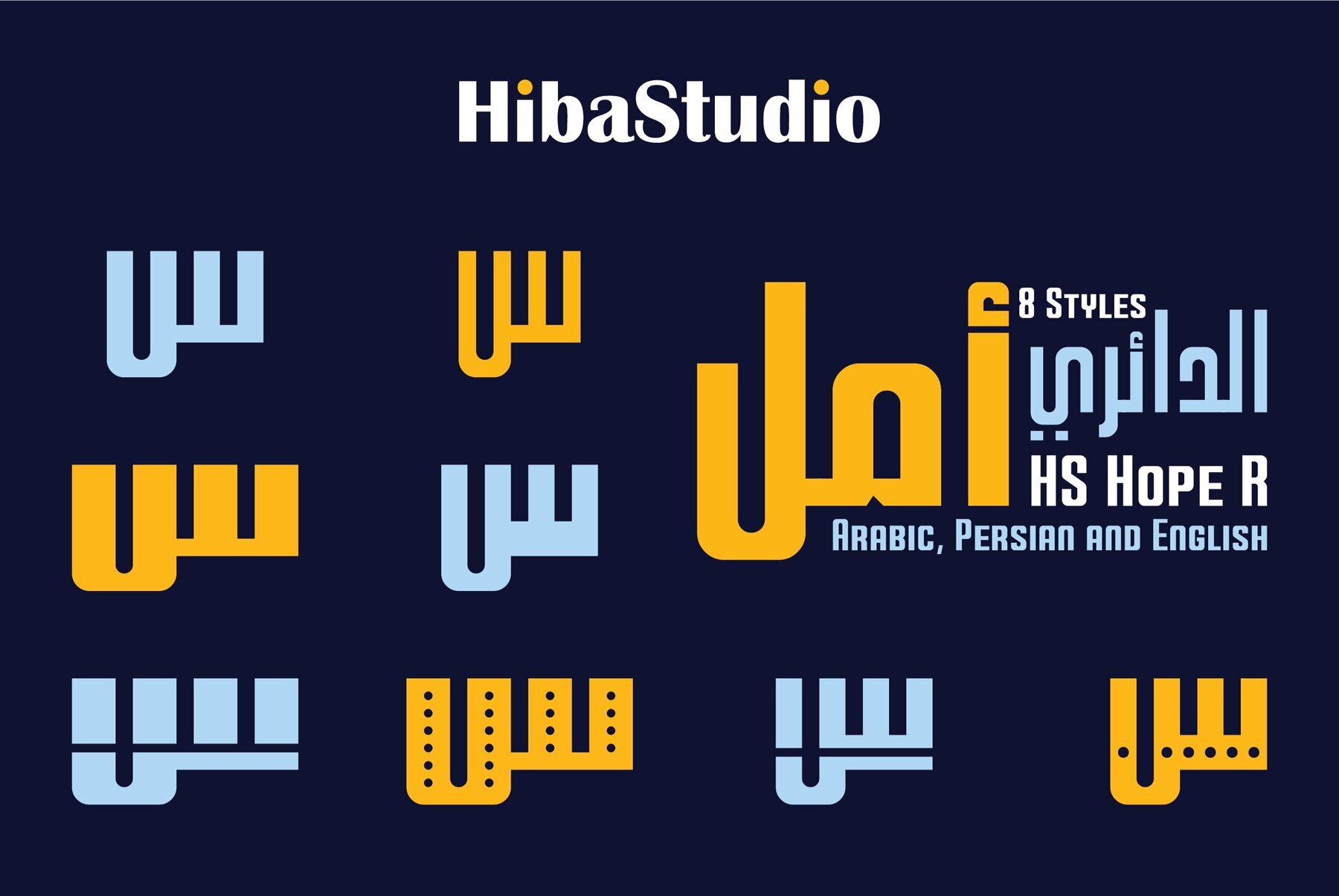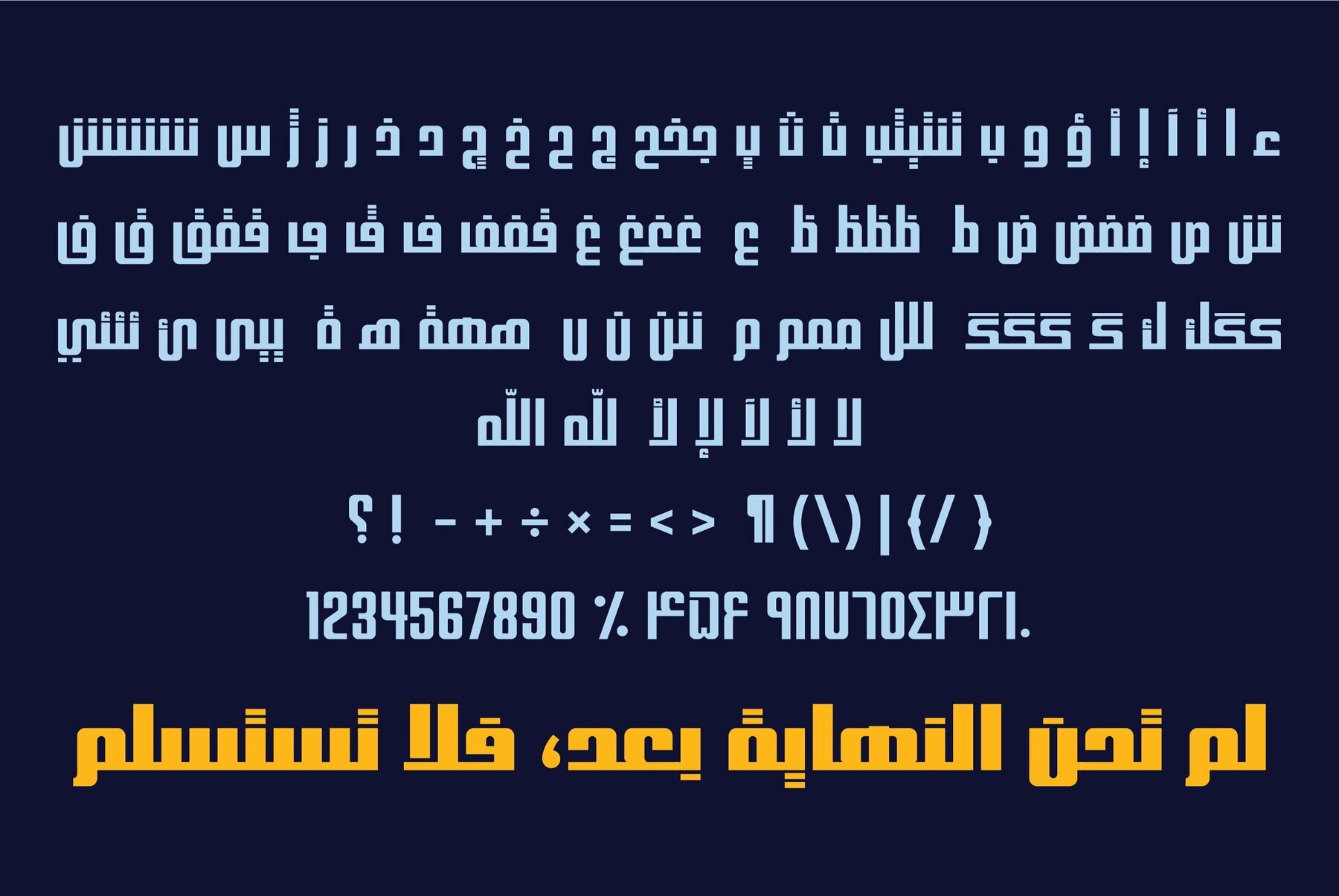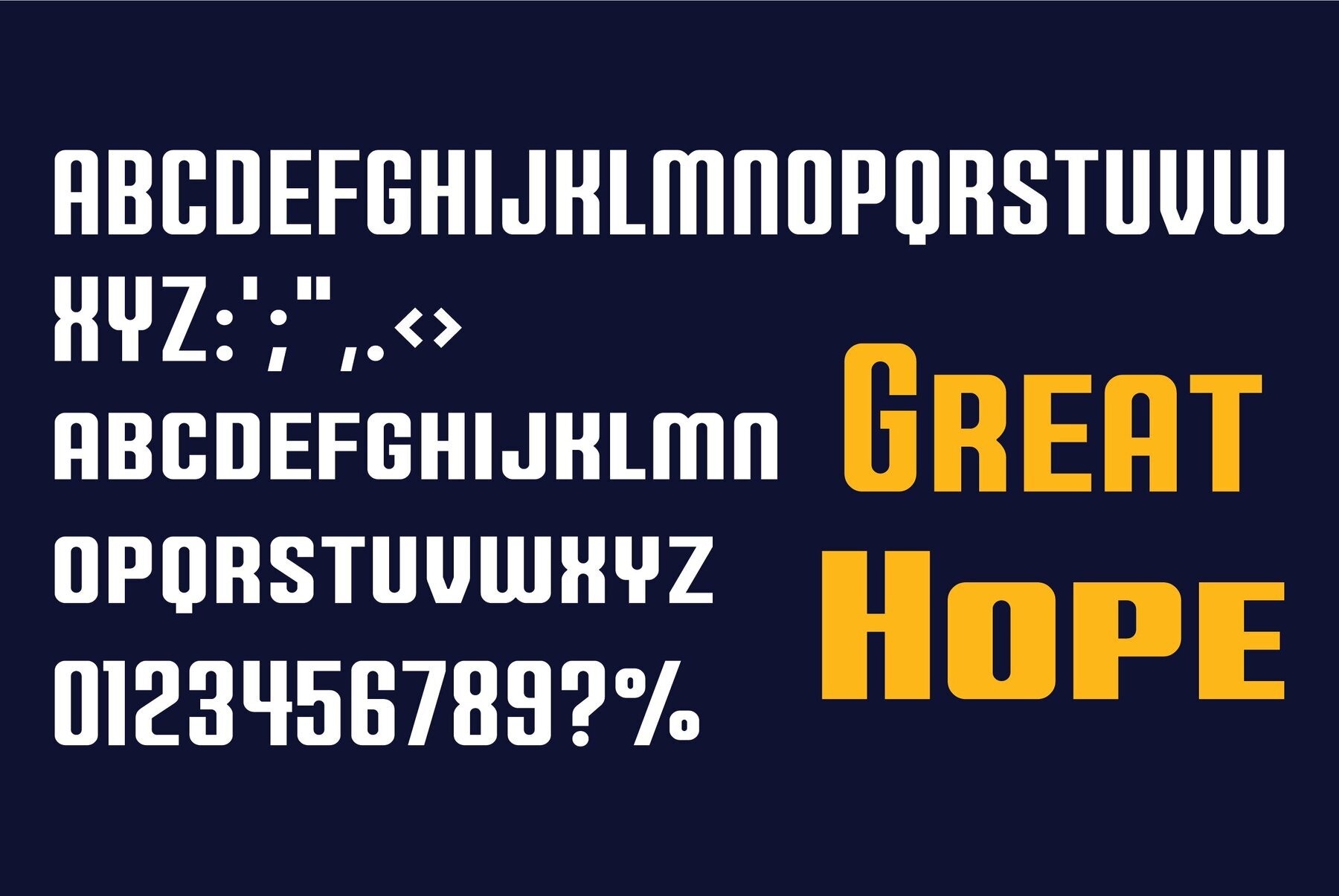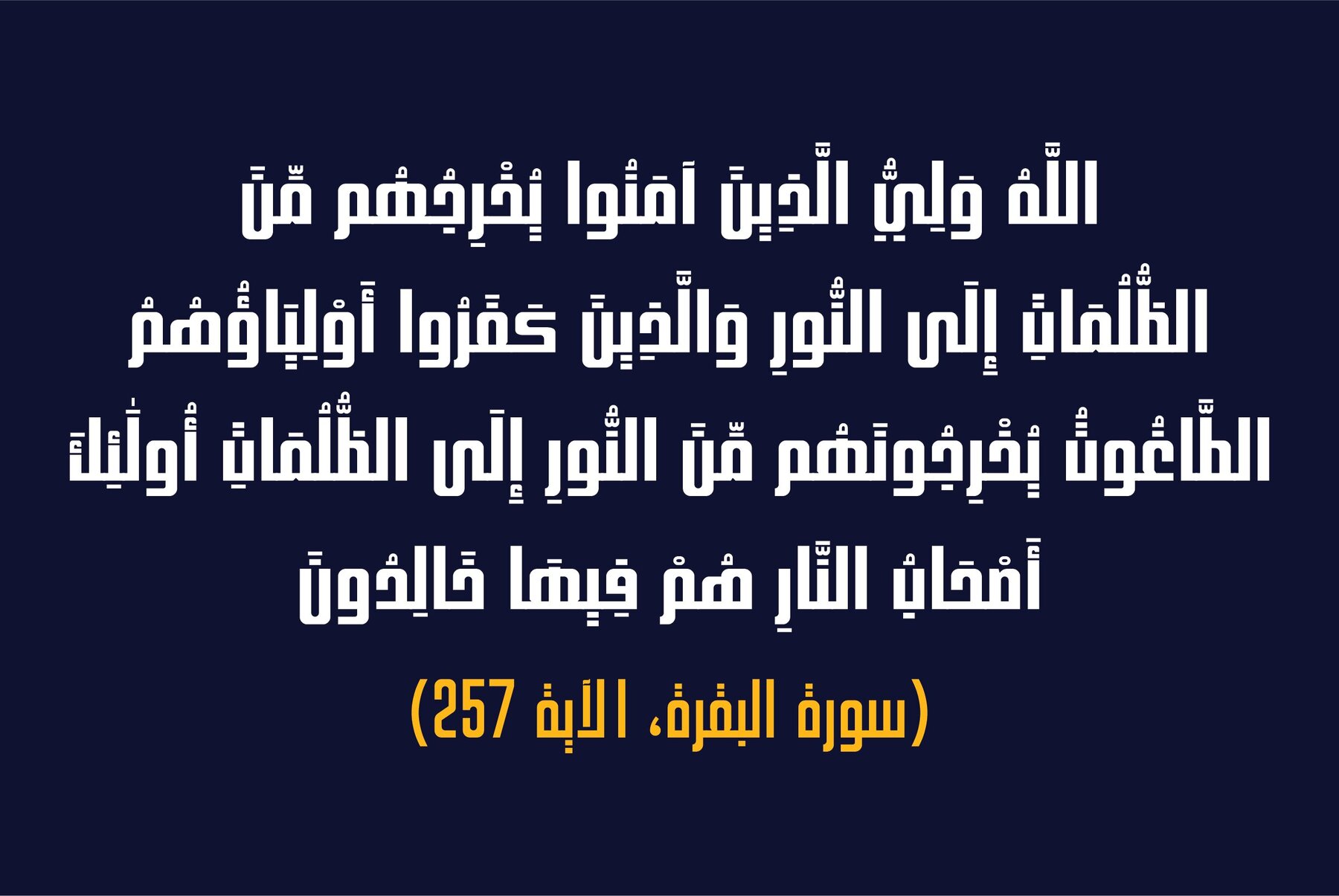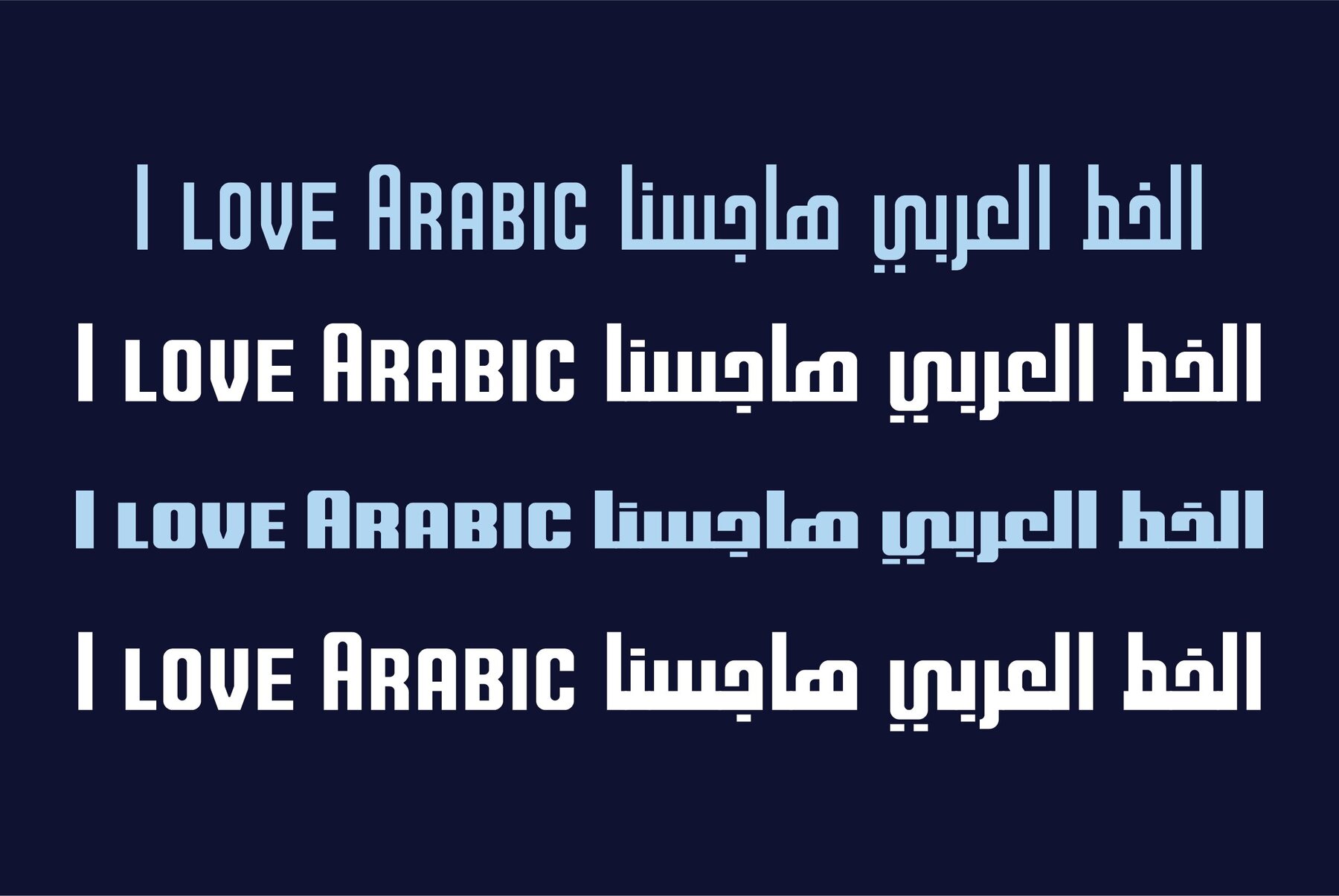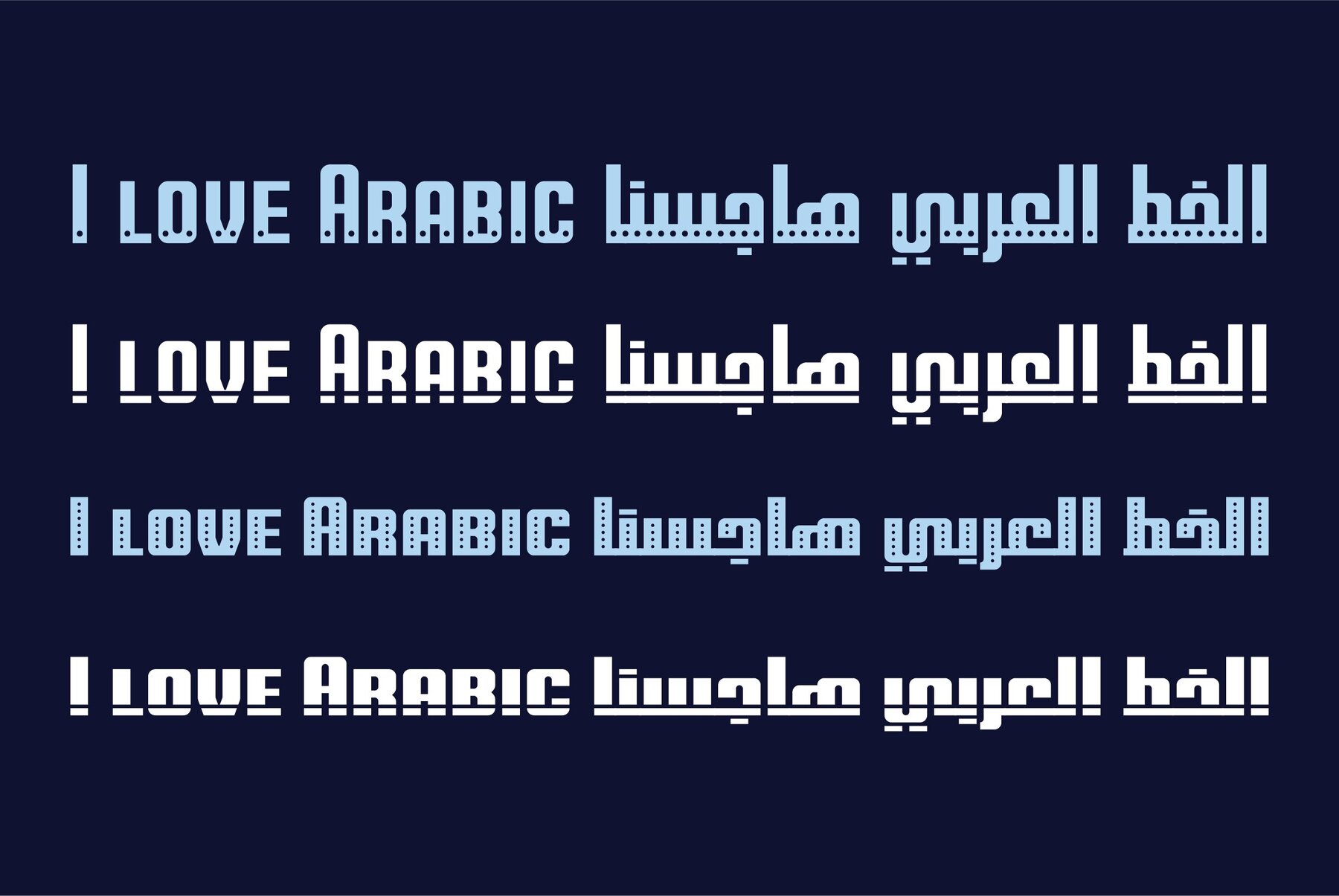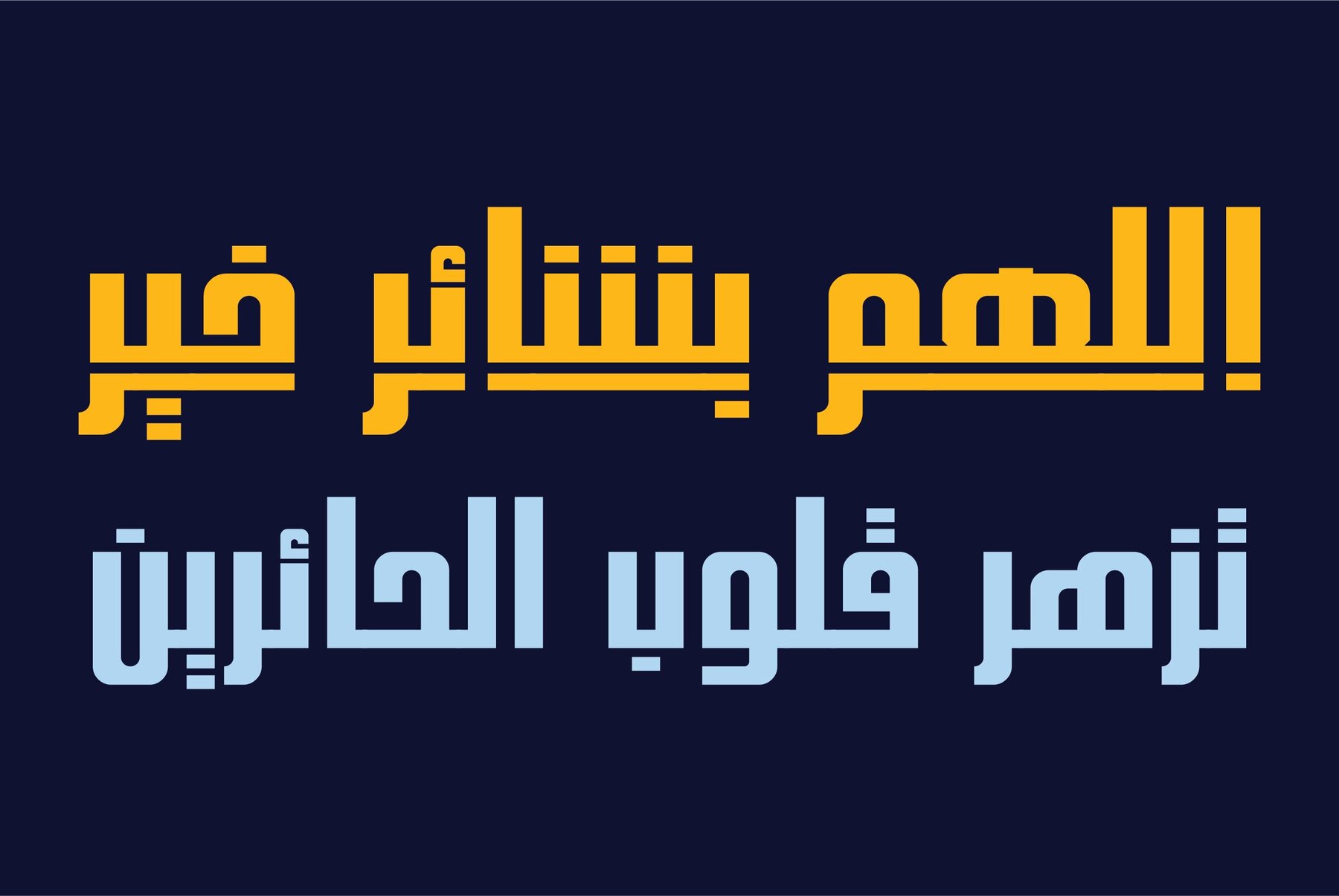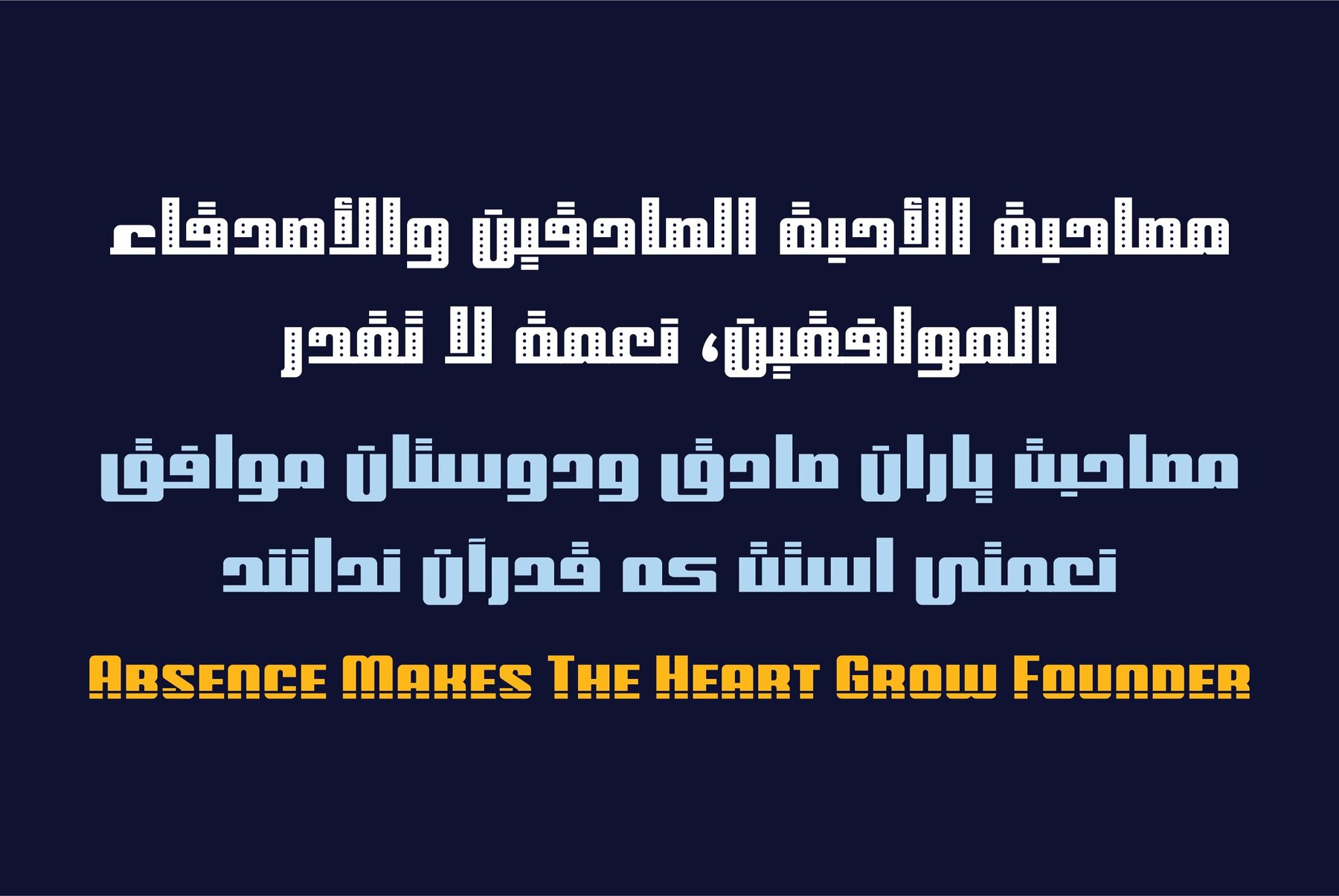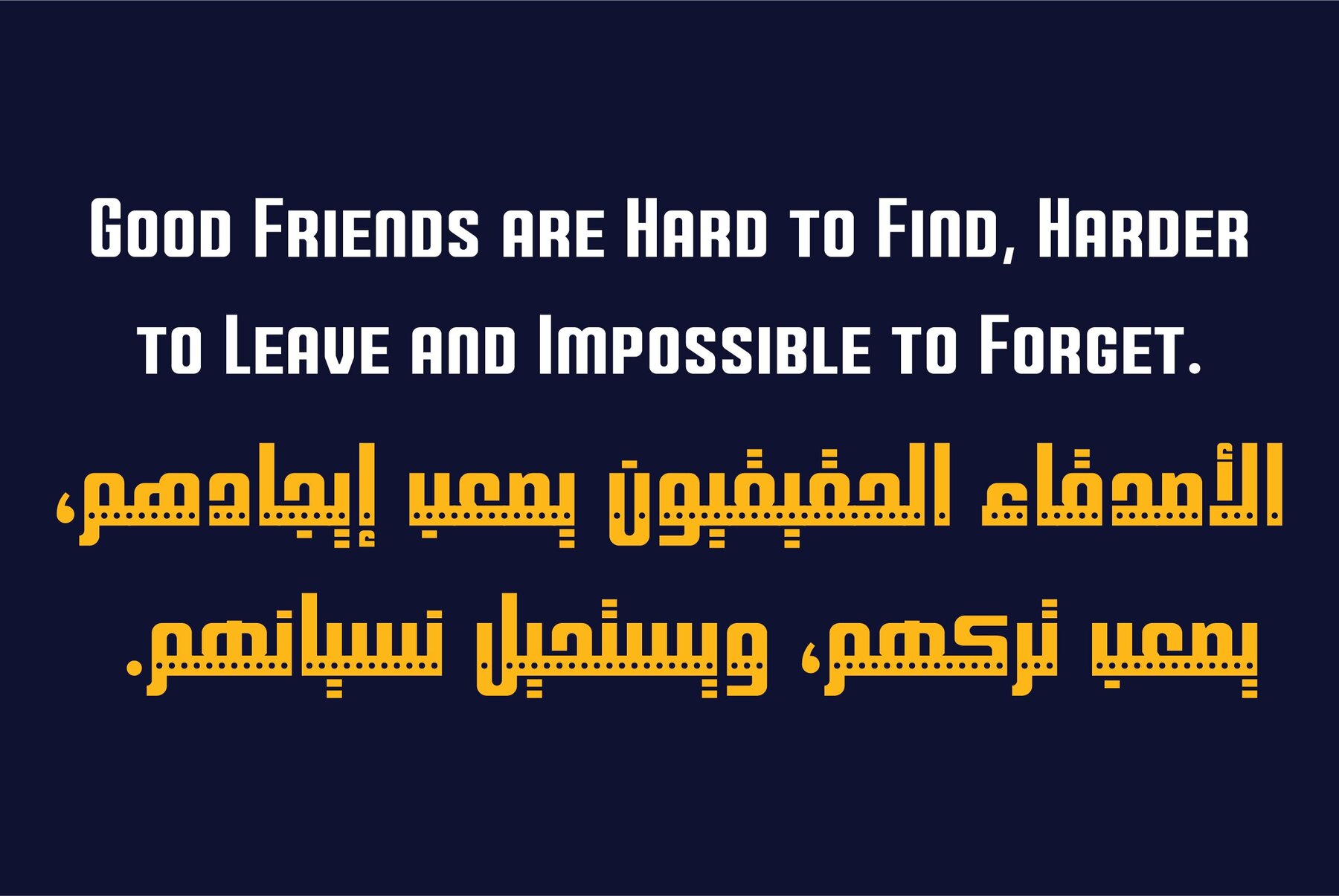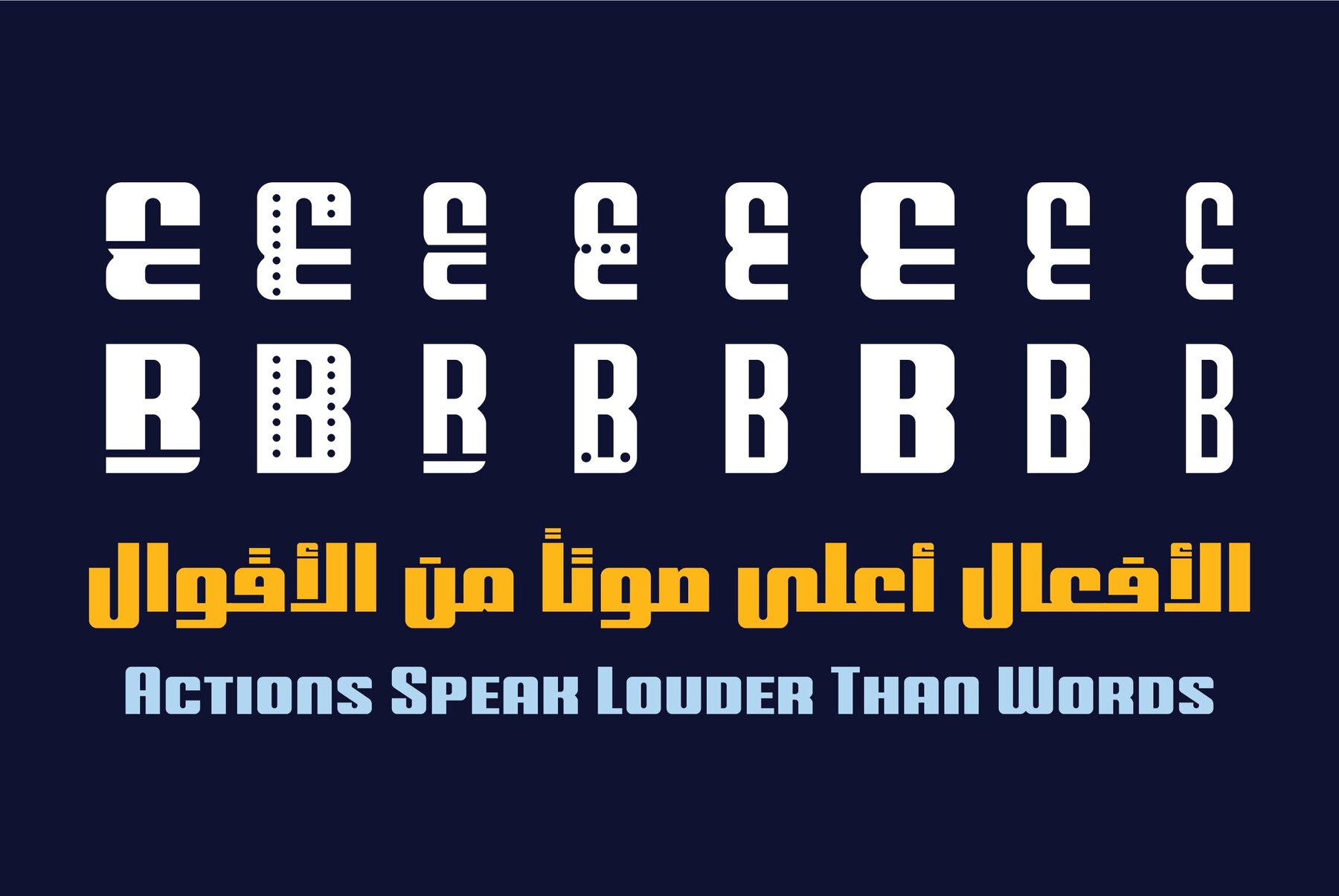
HS Hope R Font
HS Hope R is a geometric typeface that unifies Arabic, Persian, and Latin scripts through thoughtful design. Its rounded edges balance bold geometric forms, producing a welcoming yet assured presence suitable for a variety of visual projects. The design approach ensures consistency and legibility, bringing clarity to both headlines and detailed compositions. This versatile collection presents eight distinct styles—Light, Regular, Bold, Bold Dots, Bold Stencil, Title, Title Dots, and Title Stencil—each contributing unique geometric or decorative characteristics. The result is a palette that supports branding, book covers, and advertising, encouraging contemporary, visually balanced layouts. HS Hope R’s complete multilingual support makes it adaptable for both print and digital media, meeting the needs of design professionals seeking typographic cohesion across languages and contexts.HS Hope R: Geometric Harmony for Multilingual Design